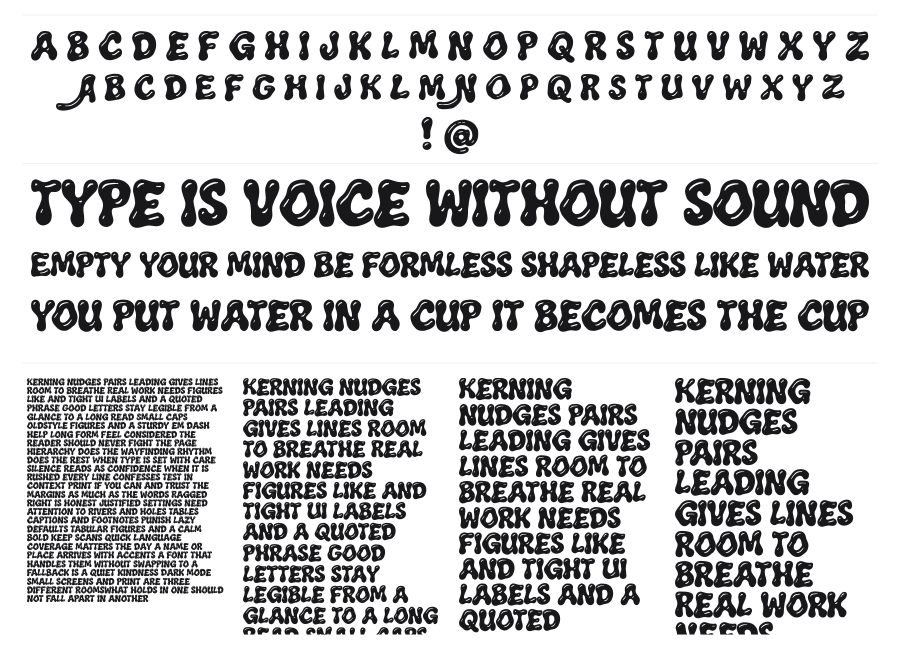
Acidrop
Acidrop is a bubbly Y2K-inspired display font with an inflated, liquid character that looks like it was dipped in gloss. The letters swell and drip with organic rounded forms, built-in shine simulation, and subtle squiggly outlines that give it tactile, almost physical presence. A solid variation strips back the effects for a bolder, cleaner look suited to quotes and branding.